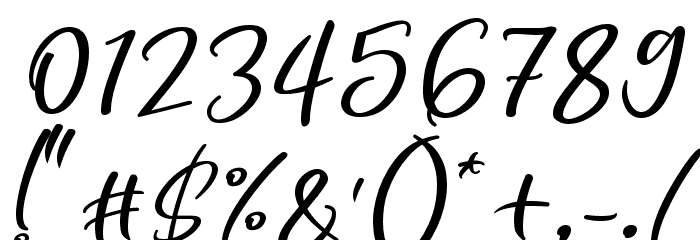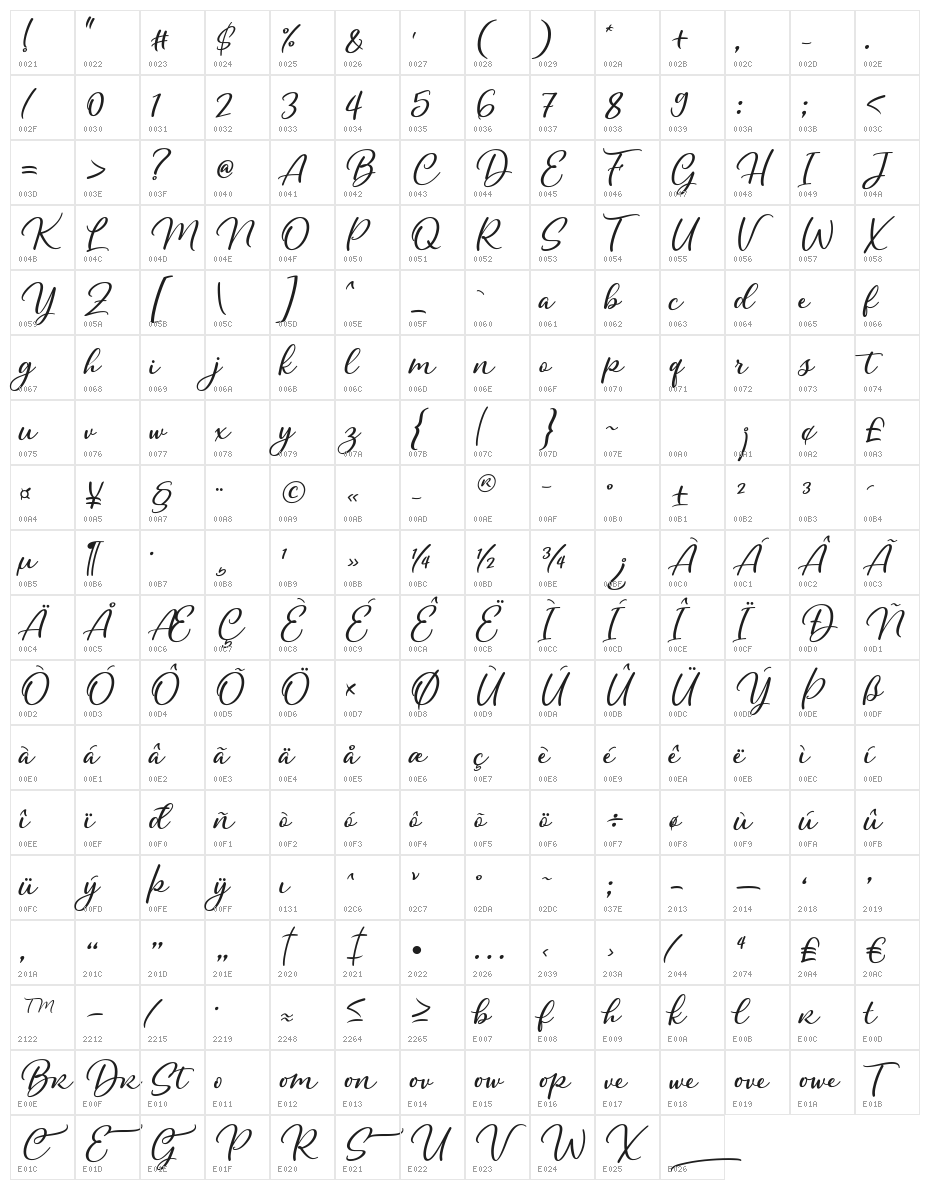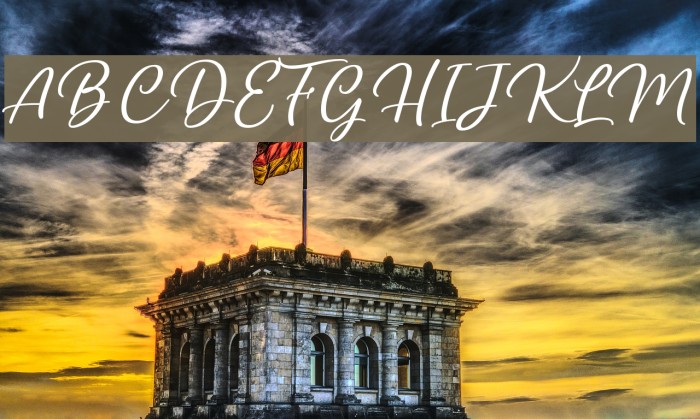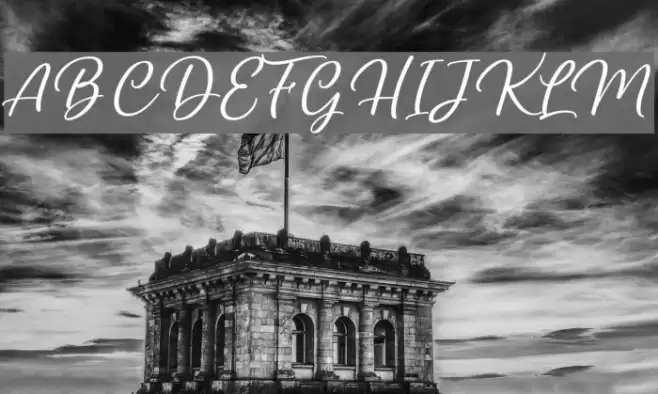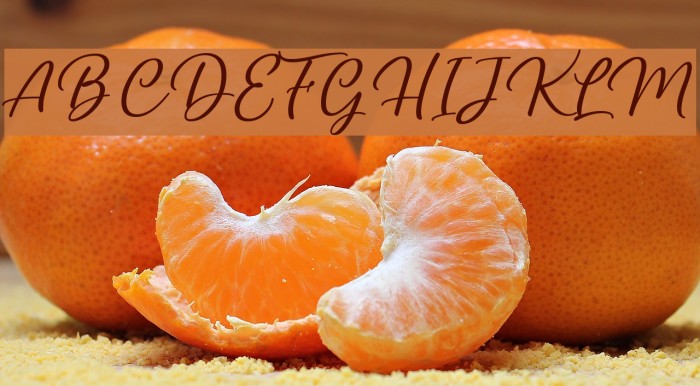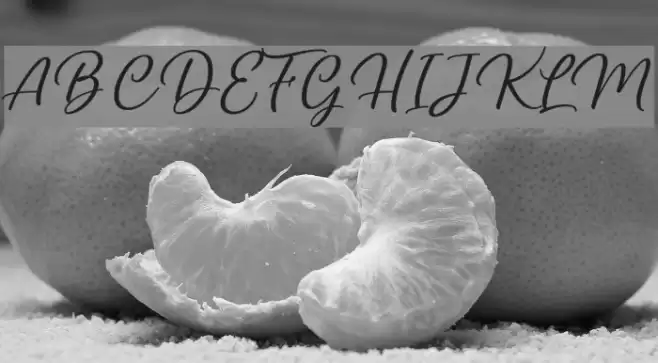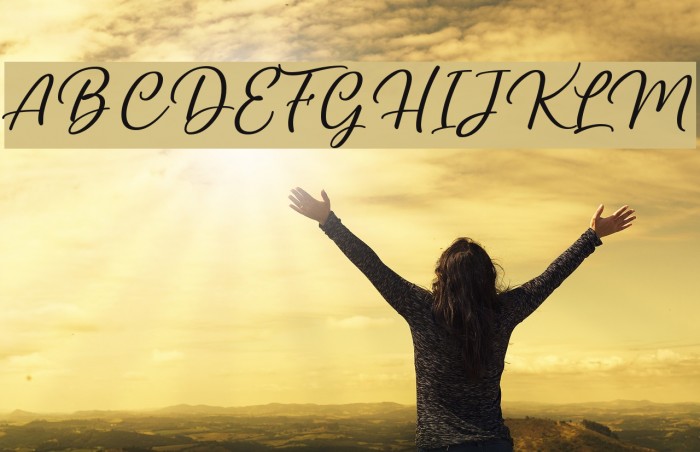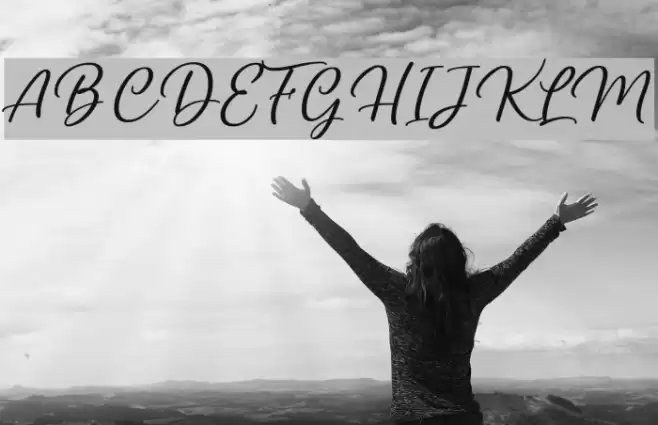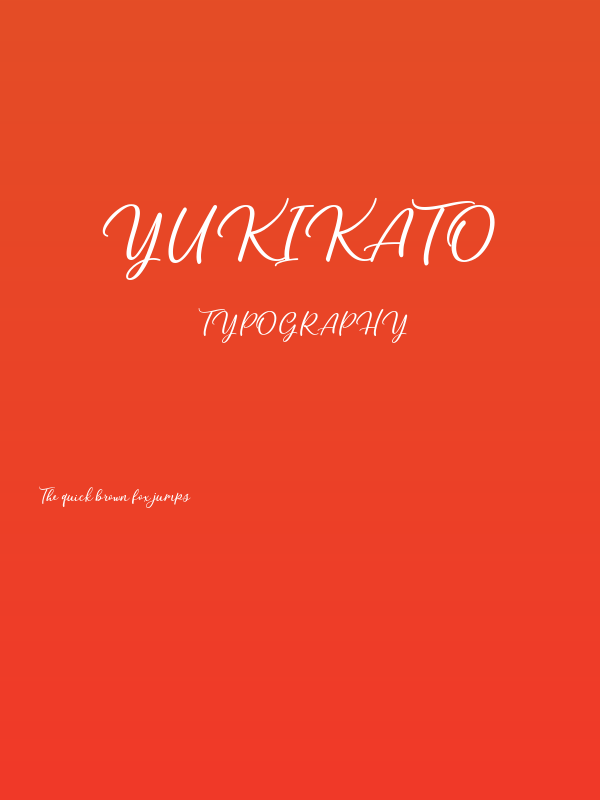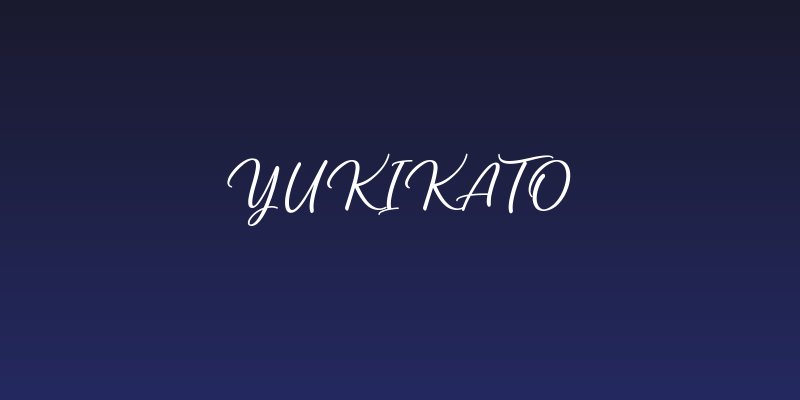
Yukikato Font
Yukikato Description
This font features a flowing, cursive style that exudes elegance and sophistication. The letters are interconnected, creating a seamless and fluid appearance. The uppercase letters are slightly more ornate, with graceful loops and swirls, while the lowercase letters maintain a consistent, smooth flow. The numerals are styled to match the cursive theme, with gentle curves and a balanced design. Special characters are integrated seamlessly, maintaining the overall aesthetic. This font is ideal for projects that require a touch of class and refinement, such as wedding invitations, branding, and elegant signage.
| Proposed Projects | Wedding invitations, elegant branding, signage, and personal stationery. |